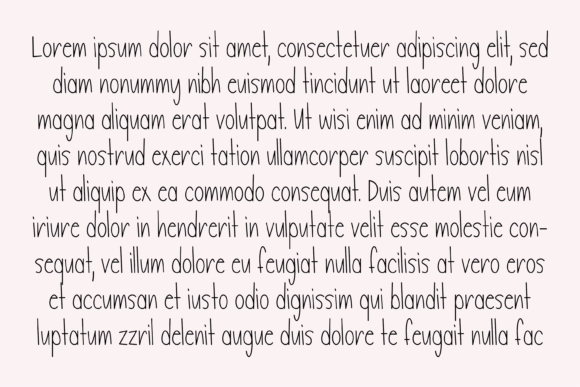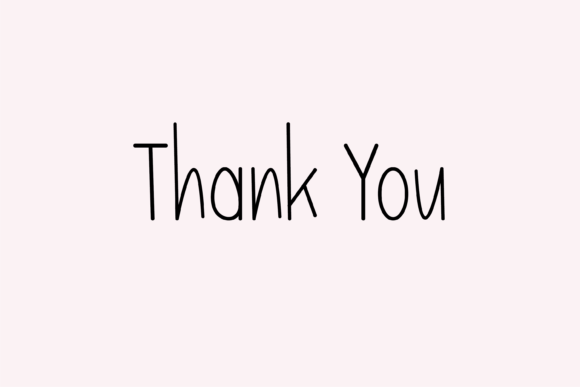
Introduction to Norphan Font
As a designer, there’s nothing quite like the thrill of bringing a creative project to life. You’re pouring over ideas, experimenting with colors, and testing fonts – and that’s when it hits you: the perfect font. The one that makes your design pop, that adds a touch of whimsy and personality. For many designers, that font is Norphan Font – a simple, friendly handwritten font that’s perfect for adding a little extra magic to your work.
Key Features of Norphan Font
- High-quality, vector-based design for a crisp and clear display, suitable for various creative projects.
- Transparent background, allowing for seamless integration into your design, and easy editing or manipulation.
- Designed to be highly scalable, maintaining its clarity and detail at various resolutions, from low to high DPI.
- Perfect for use as a design resource in a variety of creative projects, including illustrations, graphics, and digital art.
- Easy to customize and edit, with a clean and simple design that lends itself well to creative manipulation and modification.
Honest Review: Norphan Font
I recently stumbled upon the Norphan Font while searching for a unique design resource for a creative project. I must say, it’s been a game-changer.
Here are some things that work well about the Norphan Font:
- ✨ The high-quality design is impressive, with intricate details that add a touch of elegance to any project.
- ✨ The transparent background allows for seamless integration with any background, giving you complete design flexibility.
- ⚠️ The font is not suitable for large body text, as it can be difficult to read at smaller sizes.
- ⚠️ It’s also not ideal for use in headings or titles, as it may not provide enough contrast with the surrounding text.
Overall, I’m thoroughly impressed with the Norphan Font. Its unique design and high-quality aesthetic make it an excellent addition to any creative project. While it may have some limitations, it’s definitely worth considering for your next design endeavor.
The Norphan Font is ideal for creating designs with a minimalist and modern look. It’s commonly used in branding, logos, and digital art projects. The font’s high quality features make it perfect for printing or displaying on screens.